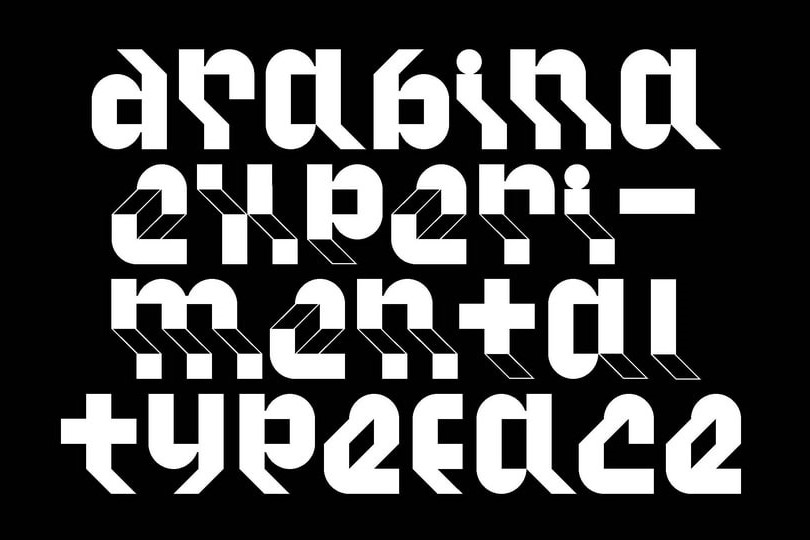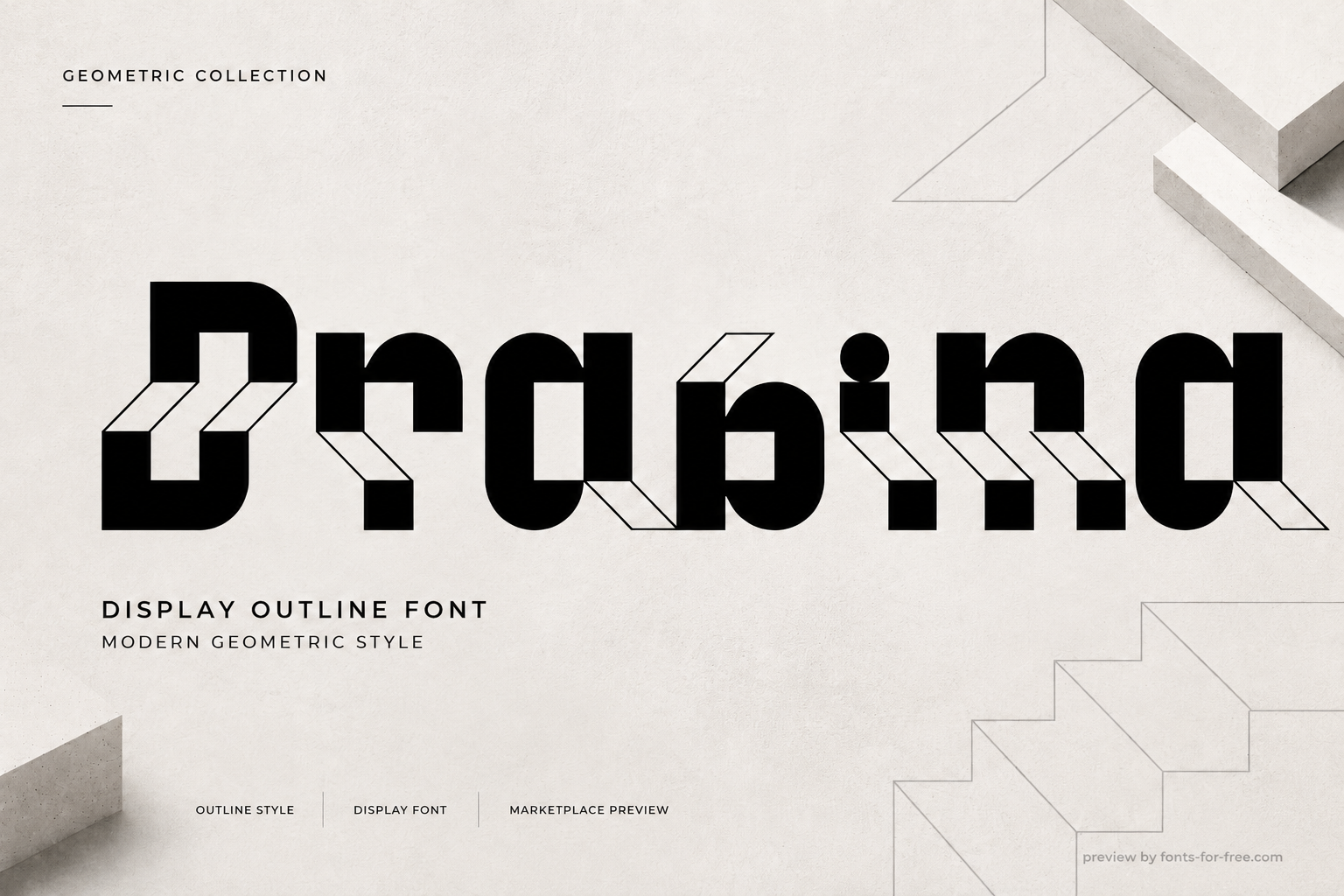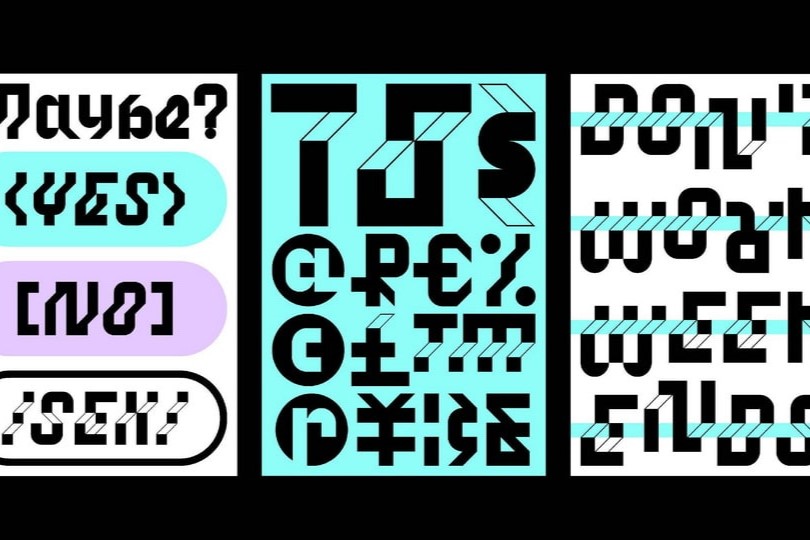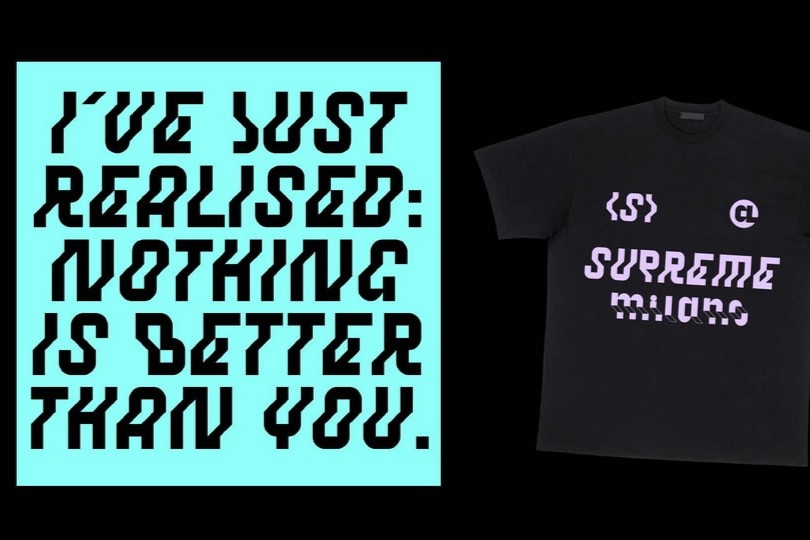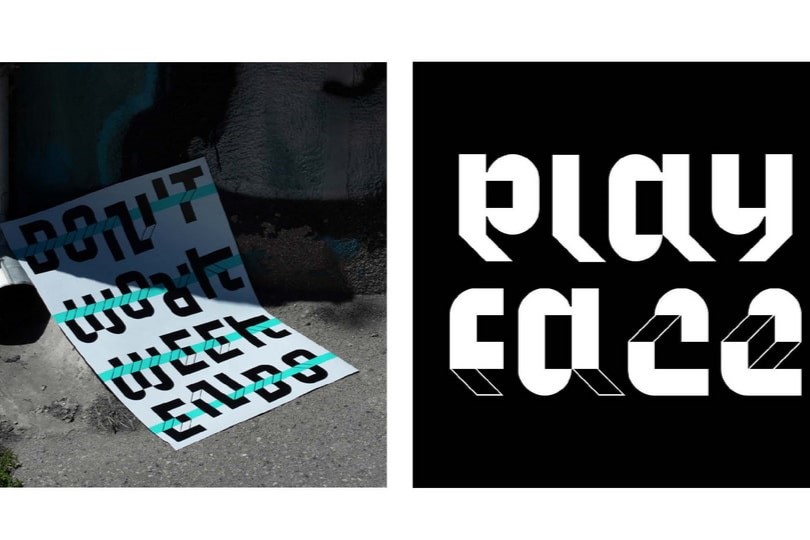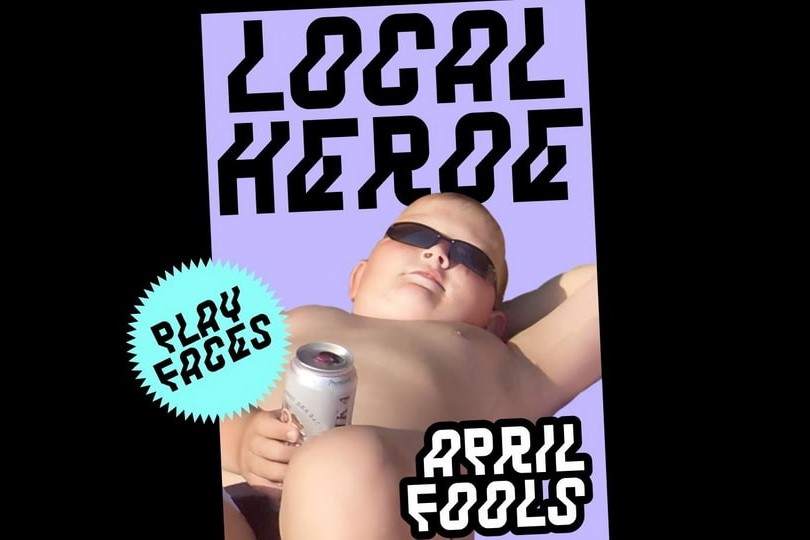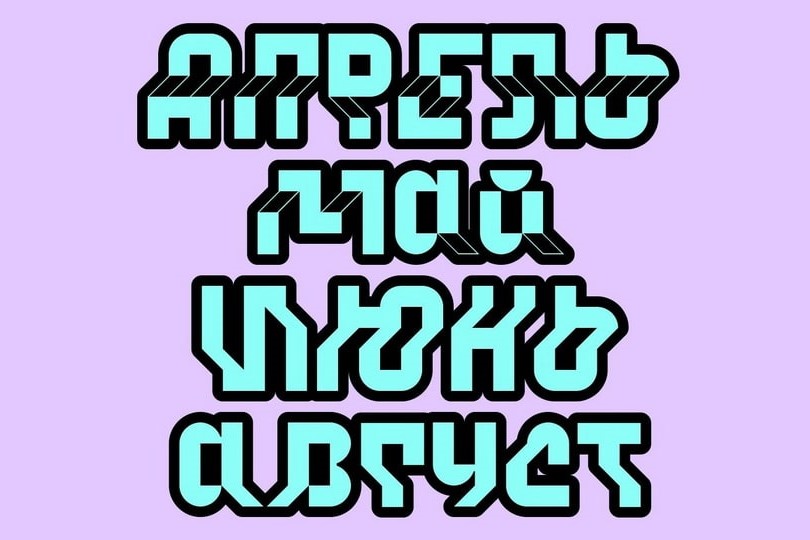
Drabina
Drabina is an experimental display typeface by Mark Blondie, distributed under the SIL Open Font License 1.1. Built from heavy geometric modules, it combines solid black strokes with outlined three-dimensional extensions that create a stepped, architectural rhythm. The letterforms are upright, low-contrast, and compact in vertical proportions, with no traditional ascenders or descenders, so the alphabet sits within a tight cap-height structure. Its bold shapes remain readable at large sizes, while the spatial outlines add a technical, constructed mood. Drabina suits posters, title graphics, branding, album covers, and other display settings where geometric structure is central.